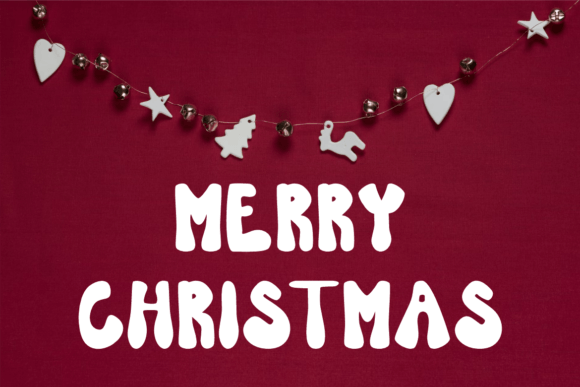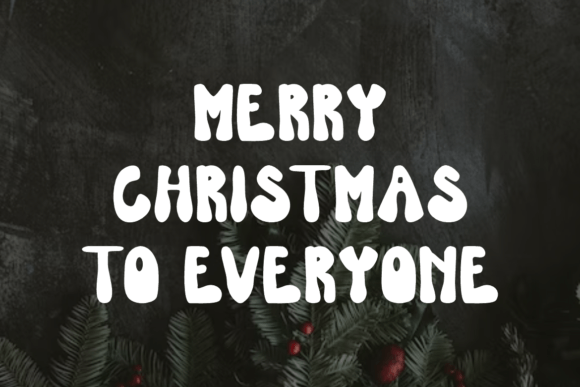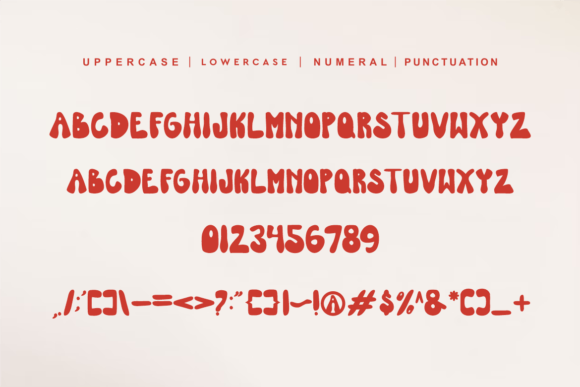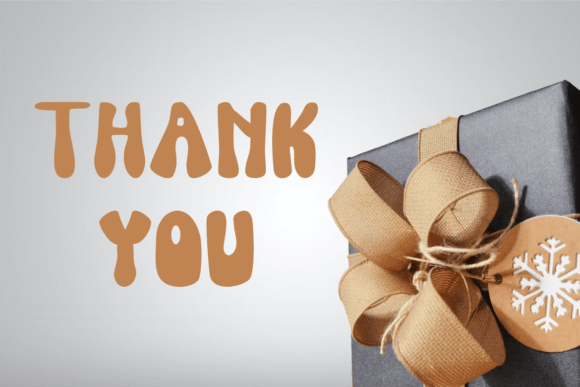
Christmas Awesome Font: The Ultimate Display Font for Your Holiday Projects
Are you looking for a font that screams Christmas cheer? Look no further than Christmas Awesome Font! This bold and authentic display font is perfect for a variety of branding projects, from logos and posters to Christmas cards, invitations, decorations, and more. In this article, we’ll dive into the features and benefits of Christmas Awesome Font, and explore how you can use it to make your holiday projects shine.
What is Christmas Awesome Font?
Christmas Awesome Font is a carefully crafted display font that’s designed to capture the essence of the holiday season. Its bold and authentic style makes it perfect for creating eye-catching headlines, titles, and graphics that will grab attention and evoke a sense of festive cheer. Whether you’re a designer, crafter, or DIY enthusiast, Christmas Awesome Font is a versatile and fun font that’s sure to inspire your creativity.
Key Features of Christmas Awesome Font
- Bold and Authentic Style: Christmas Awesome Font features a bold and authentic style that’s perfect for creating eye-catching headlines and titles.
- Versatile and Flexible: This font is suitable for a wide range of projects, from logos and posters to Christmas cards, invitations, and decorations.
- Easy to Read: Despite its bold style, Christmas Awesome Font is easy to read, making it perfect for use in a variety of contexts.
How to Use Christmas Awesome Font
Christmas Awesome Font is perfect for a wide range of projects, including:
- Logos and Branding: Use Christmas Awesome Font to create a bold and eye-catching logo that’s sure to stand out.
- Posters and Flyers: Create festive posters and flyers that will grab attention and promote your holiday event or sale.
- Christmas Cards and Invitations: Add a personal touch to your holiday cards and invitations with Christmas Awesome Font.
- Decorations and Signage: Use Christmas Awesome Font to create eye-catching decorations and signage that will add to your holiday decor.
Why Choose Christmas Awesome Font?
So why choose Christmas Awesome Font for your holiday projects? Here are just a few reasons:
- Unique and Eye-Catching: Christmas Awesome Font is a unique and eye-catching font that’s sure to stand out from the crowd.
- High-Quality Design: This font is carefully crafted with high-quality design principles in mind, ensuring that it looks great in a variety of contexts.
Tips and Tricks for Using Christmas Awesome Font
Here are a few tips and tricks for getting the most out of Christmas Awesome Font:
- Experiment with Colors: Try pairing Christmas Awesome Font with a range of festive colors to create a unique and eye-catching look.
- Use it with Other Fonts: Combine Christmas Awesome Font with other fonts to create a unique and interesting visual effect.
- Pay Attention to Size: Make sure to use Christmas Awesome Font at a size that’s large enough to be easily readable.